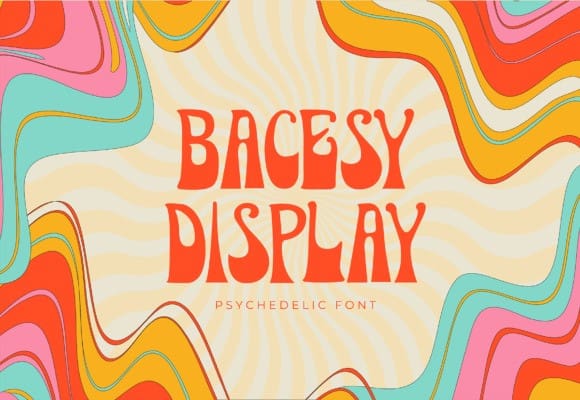
Bacesy Display Font
Bacesy Display Font is a psychedelic display font. It’s retro, bold, and playful, perfect if you need a dose of fun in your creative projects!